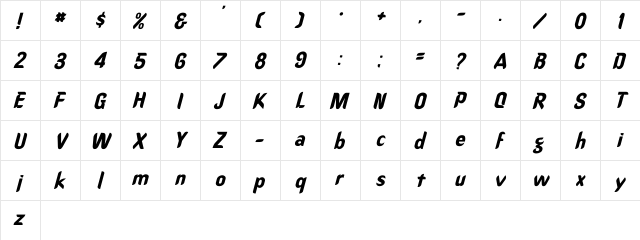
OregonDry Italic Italic
Design Context for OregonDry Italic Typeface
OregonDry Italic is a composed and adaptable typeface that performs quietly and consistently across a wide range of design contexts. Its italic angle brings a sense of urgency and motion to the letterforms.
Pro Tip: Try OregonDry Italic for annotation and caption copy alongside an upright companion — the contrast in angle creates a dynamic but ordered typographic system.